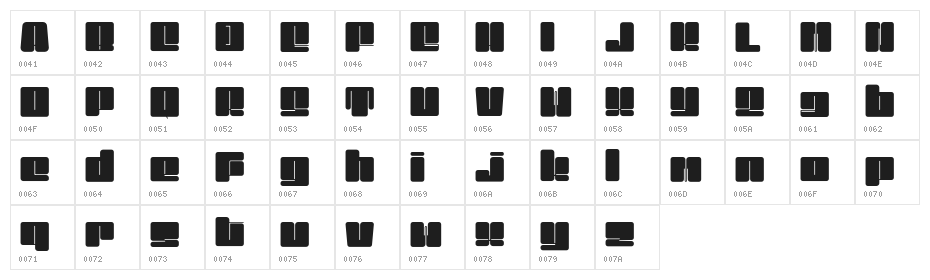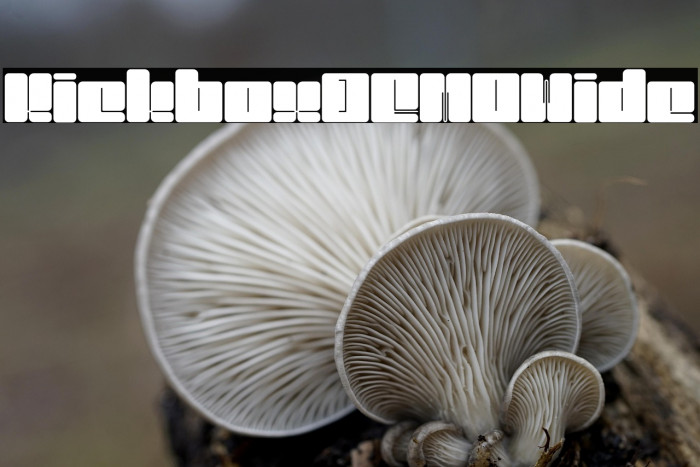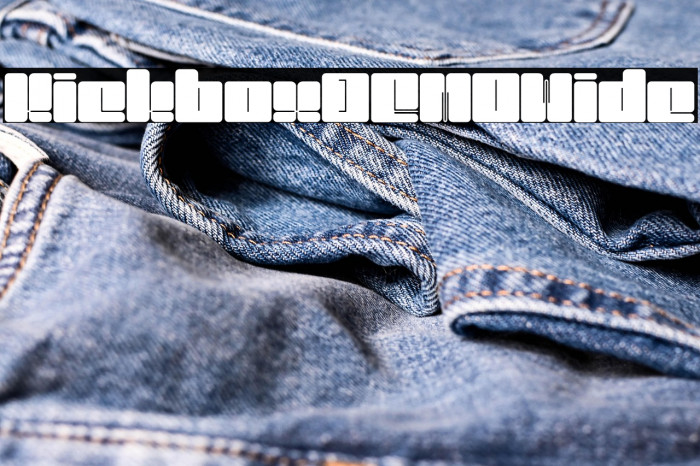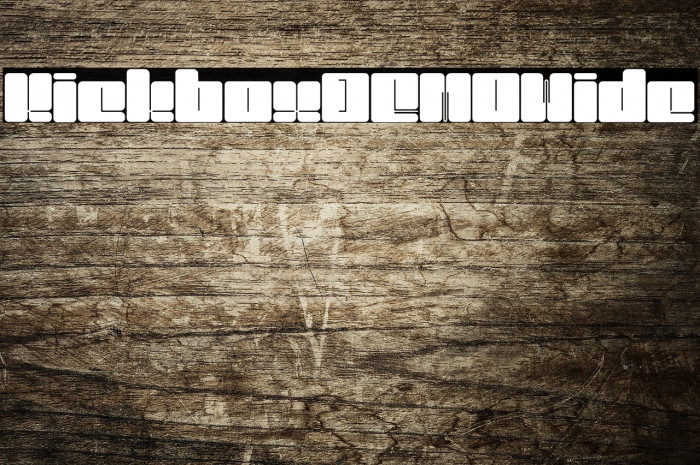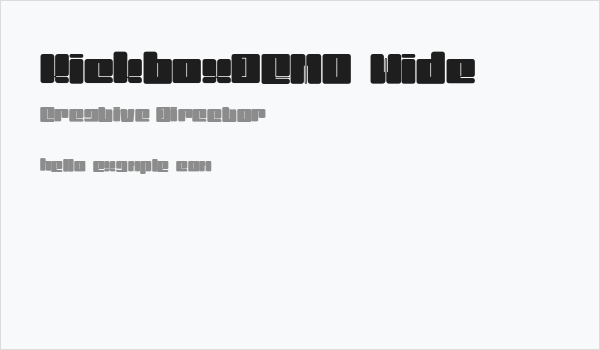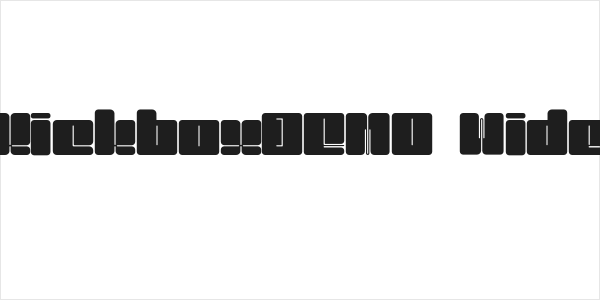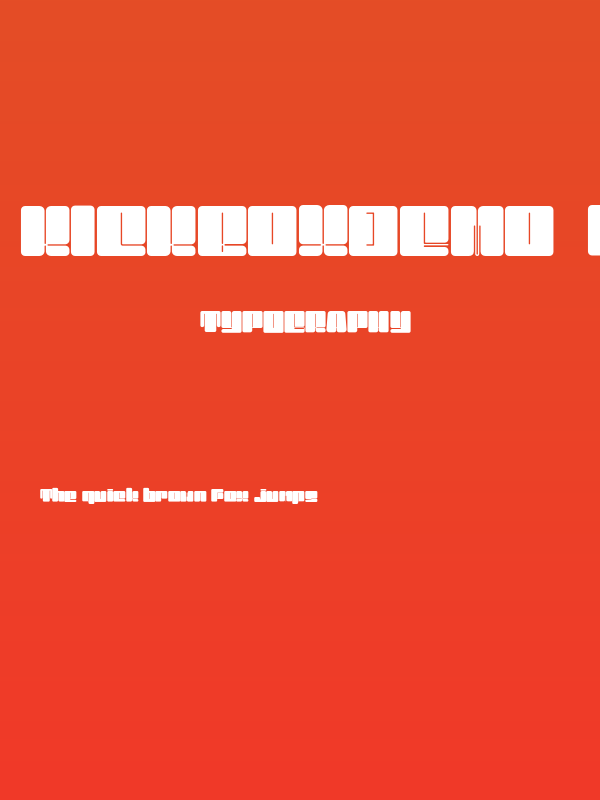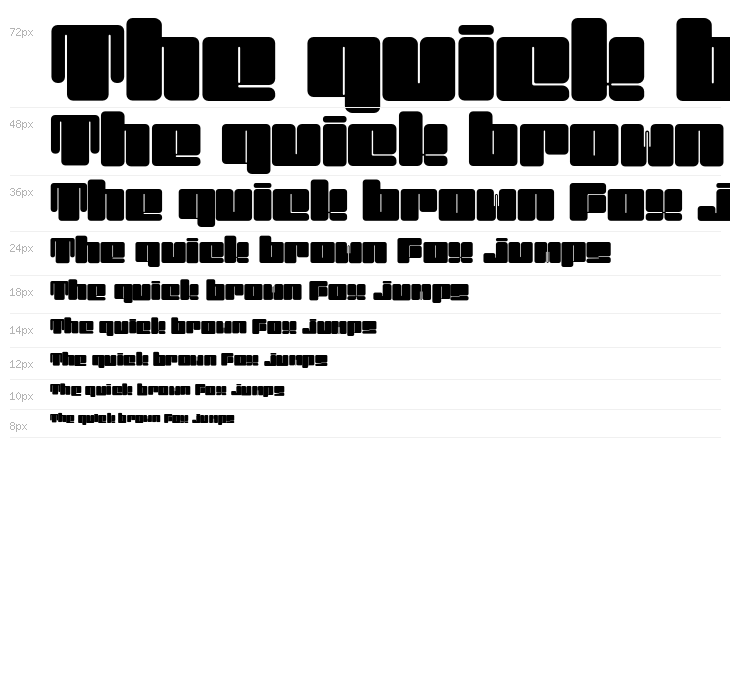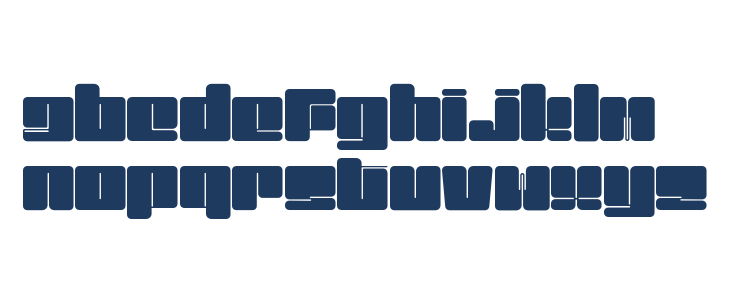
KickboxDEMO-Wide Font
KickboxDEMO-Wide Description
This font features a bold, geometric design with a distinctly modern and futuristic aesthetic. The characters are wide and blocky, with a uniform thickness that gives them a strong, impactful presence. The design is highly stylized, with rounded edges and a consistent stroke weight that creates a cohesive look across all characters. The font's unique style makes it stand out, offering a visually striking appearance that is both contemporary and versatile. It is well-suited for projects that require a bold statement, such as branding, advertising, and digital media. The uniformity in the character design ensures readability while maintaining a distinctive visual appeal.
| Proposed Projects | Ideal for branding, advertising, digital media, and any project requiring a bold, modern statement. |